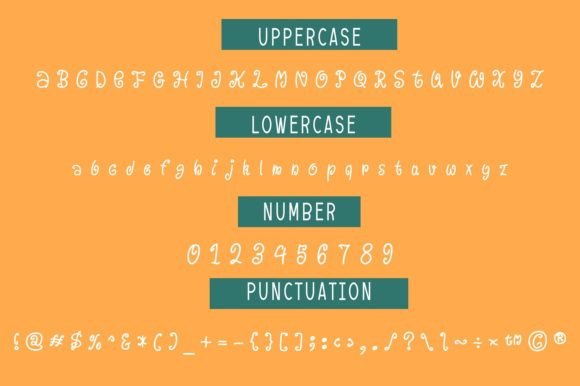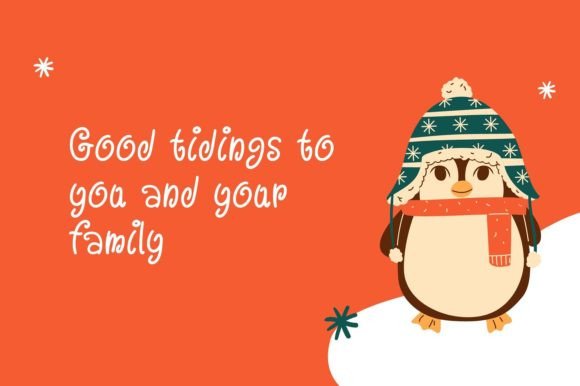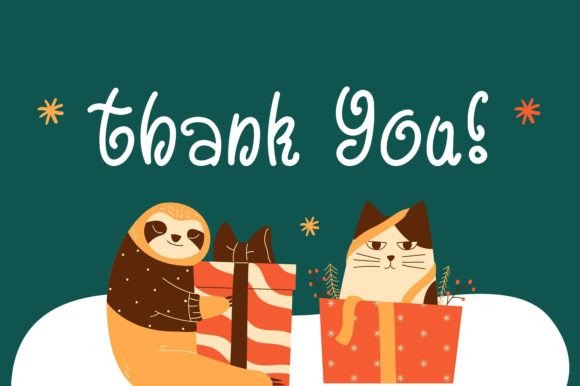
Introduction to Christmas Brown Font
As the holiday season approaches, designers are on the lookout for the perfect font to add some festive flair to their projects. If you’re searching for a font that embodies the spirit of Christmas without being too over-the-top, you’re in luck. I recently stumbled upon the Christmas Brown Font, and I’m excited to share its charms with you.
This delightful handwritten font is the perfect addition to any design project, from holiday cards to branding materials. Its light, playful characters bring a touch of authenticity to your work, making it a valuable resource for designers who want to create high-quality, engaging content. Plus, with a transparent background, it’s easy to integrate into your designs.
Whether you’re working on a creative project or just need a fun font for a social media post, the Christmas Brown Font is a free download that’s sure to bring some holiday cheer to your work. In this article, we’ll take a closer look at this design resource and explore its many uses.
Key Features of Christmas Brown Font
- High-quality design: This font is crafted with attention to detail, ensuring a professional and polished look for any creative project.
- Transparent background: This font features a transparent background, allowing for seamless integration into various design elements.
- High-resolution design: The font is designed at a high resolution, making it suitable for large-scale prints and high-resolution displays.
- Unique Christmas theme: The Christmas Brown Font features a unique and festive design, perfect for holiday-themed projects and creative expressions.
Honest Review: Christmas Brown Font
As a designer, I’m always on the lookout for high-quality design resources that can elevate my creative projects. Recently, I came across the Christmas Brown Font, and I was excited to give it a try.
One of the things that works well with this font is its unique blend of rustic and elegant styles. It’s perfect for creating a cozy and inviting atmosphere in your designs, especially for holiday-themed projects. The font is also available for free download, making it a great resource for designers on a budget.
- Unique blend of rustic and elegant styles
- Perfect for holiday-themed projects
One limitation of the Christmas Brown Font is that it may not be suitable for all types of projects. The font is quite ornate and may not be the best choice for minimalist or modern designs.
Overall, I’m impressed with the Christmas Brown Font. It’s a great addition to any designer’s toolkit, and I would definitely recommend it for creative projects that require a unique and festive touch.
Some common use cases for Christmas Brown Font include creating holiday-themed designs, such as Christmas cards, gift tags, or social media graphics. To get the most out of this font, experiment with different font sizes, colors, and styles to create unique and eye-catching designs.
Yes, the Christmas Brown Font is optimized for digital use and can be used in a variety of digital applications, including websites, social media, and mobile apps. The font is highly legible and scalable, making it perfect for use in digital designs where text may be viewed at various sizes and resolutions.